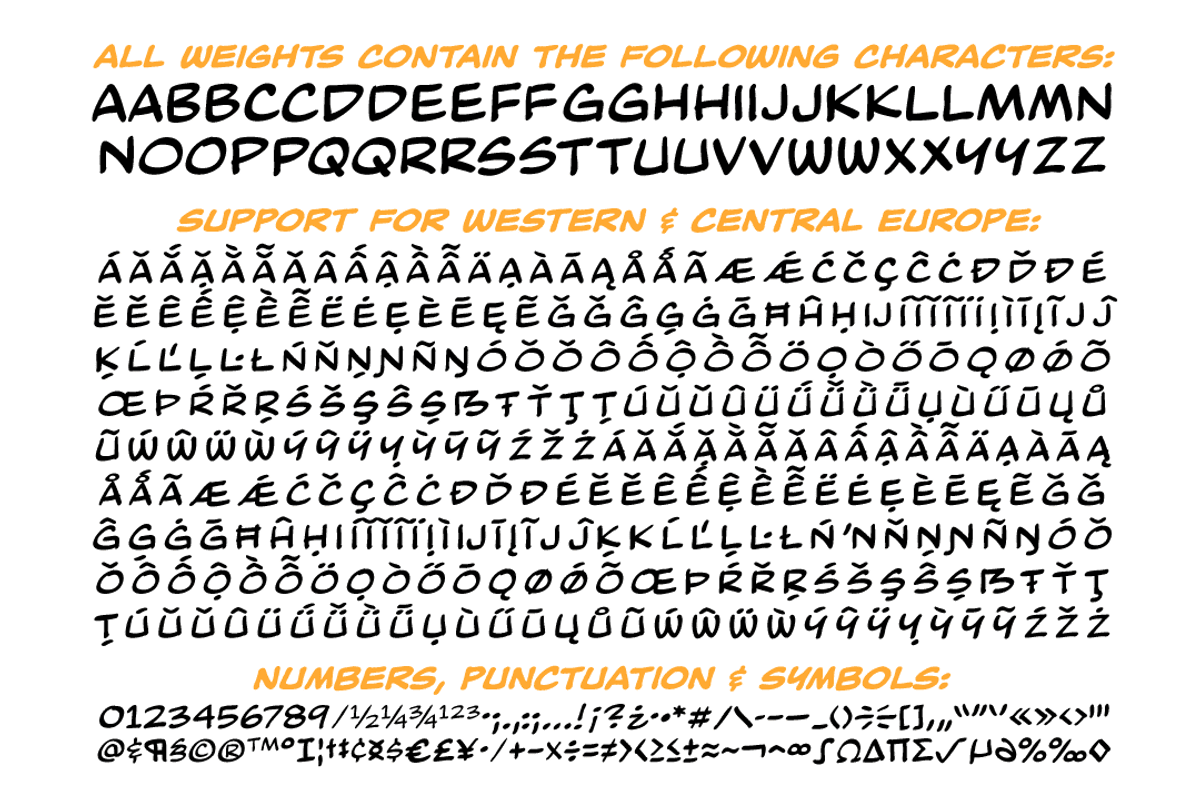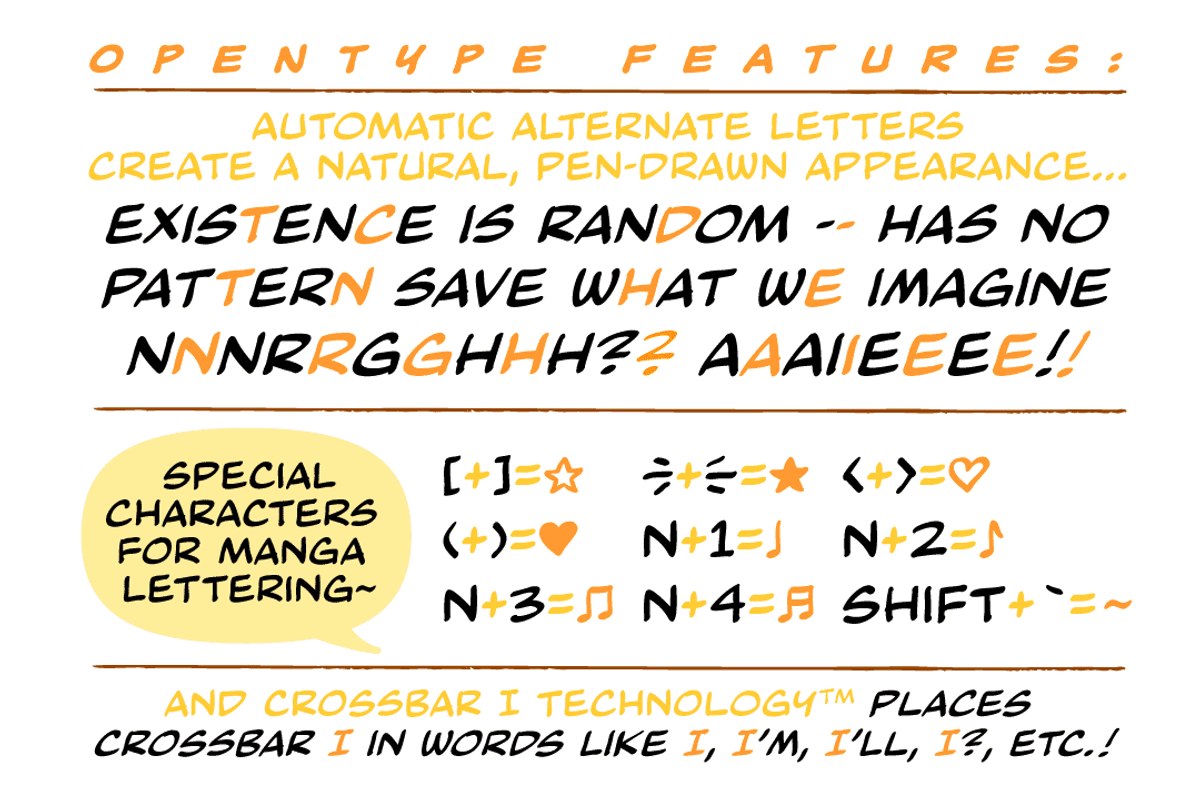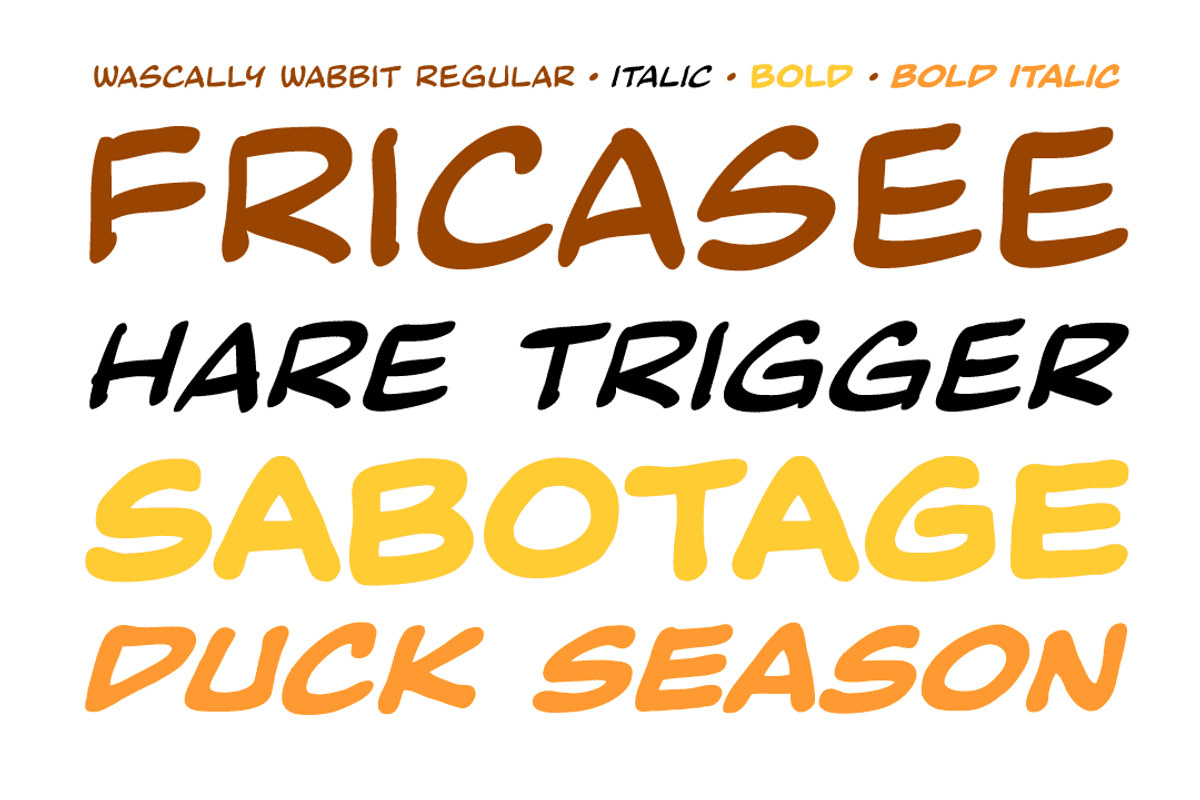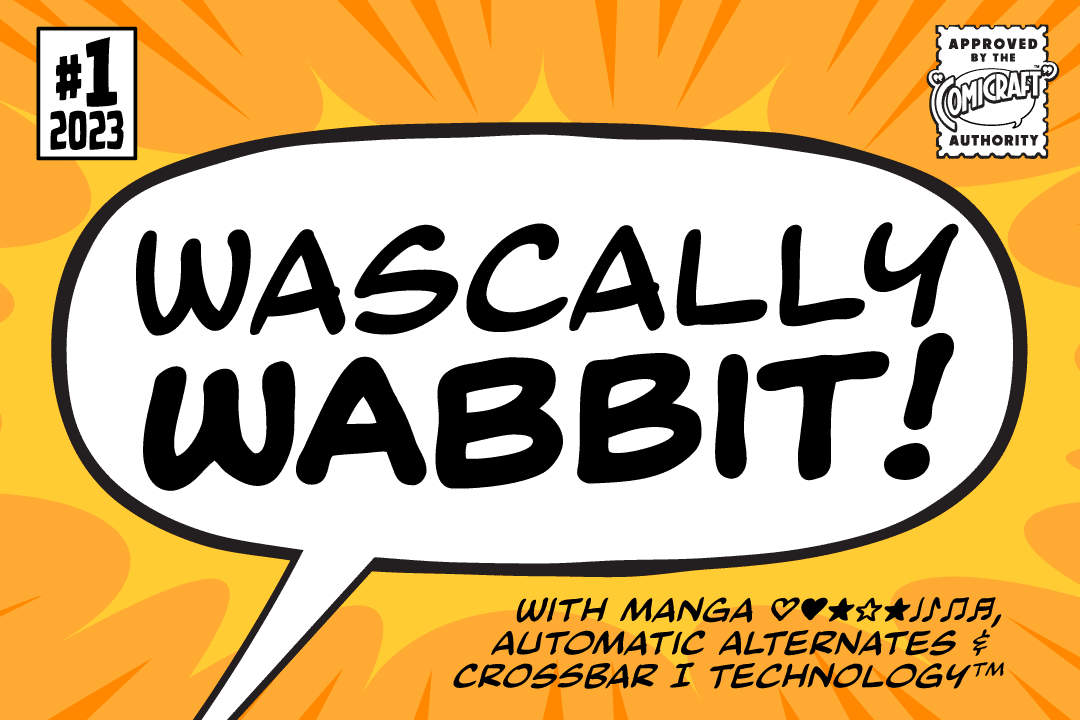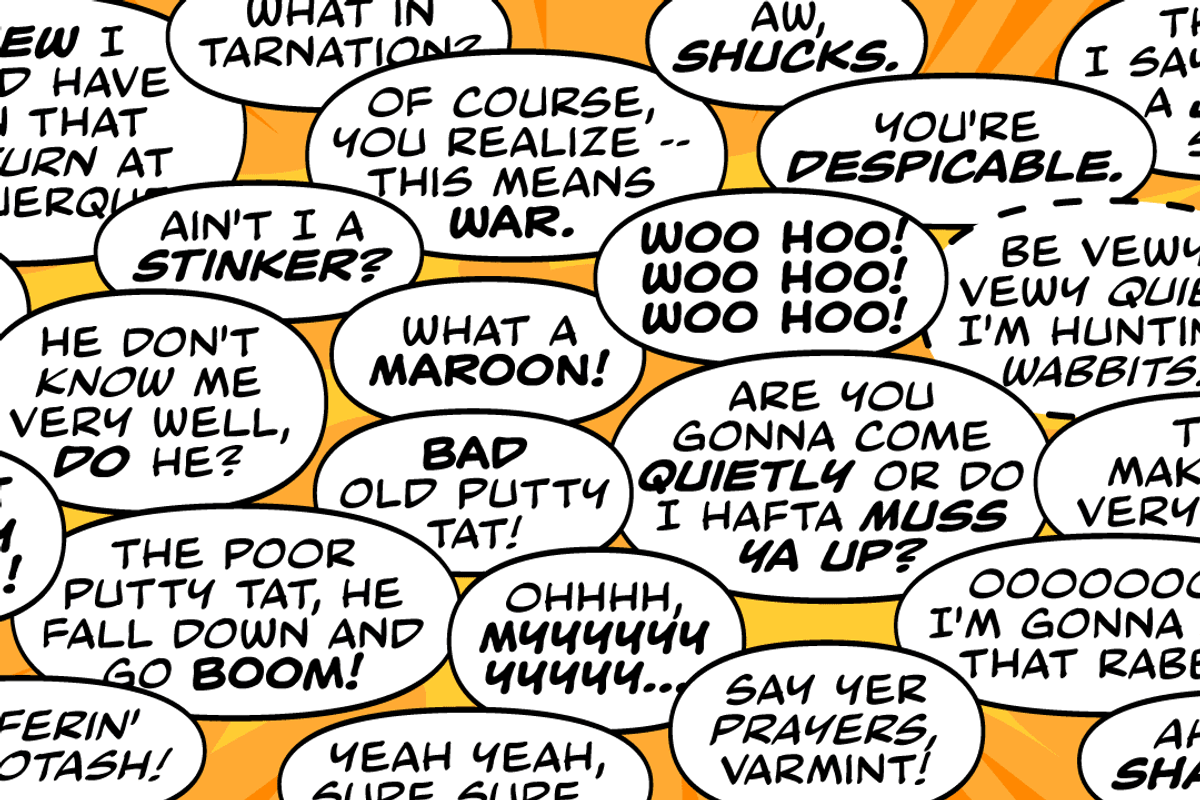
Wascally Wabbit comic & cartoon font
This cunning, conniving, chattering font is devious, devilish and dashing! It's a toon town tattler that will lend a flippant insouciant personality to your comic books and animated features. These handsome letterforms will nab you, jab you, grab you and may even stab you with their sly wily guile. Our advice: Be Very Very Qwiet when tracking down this Wascally Wabbit.
This full-featured comic book lettering font includes four weights with automatically alternating uppercase alphabets, support for Western & Central Europe, Manga characters & Crossbar I Technology™: